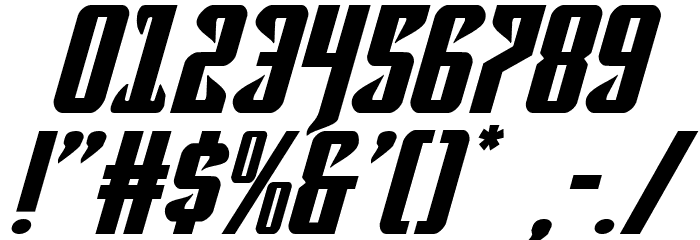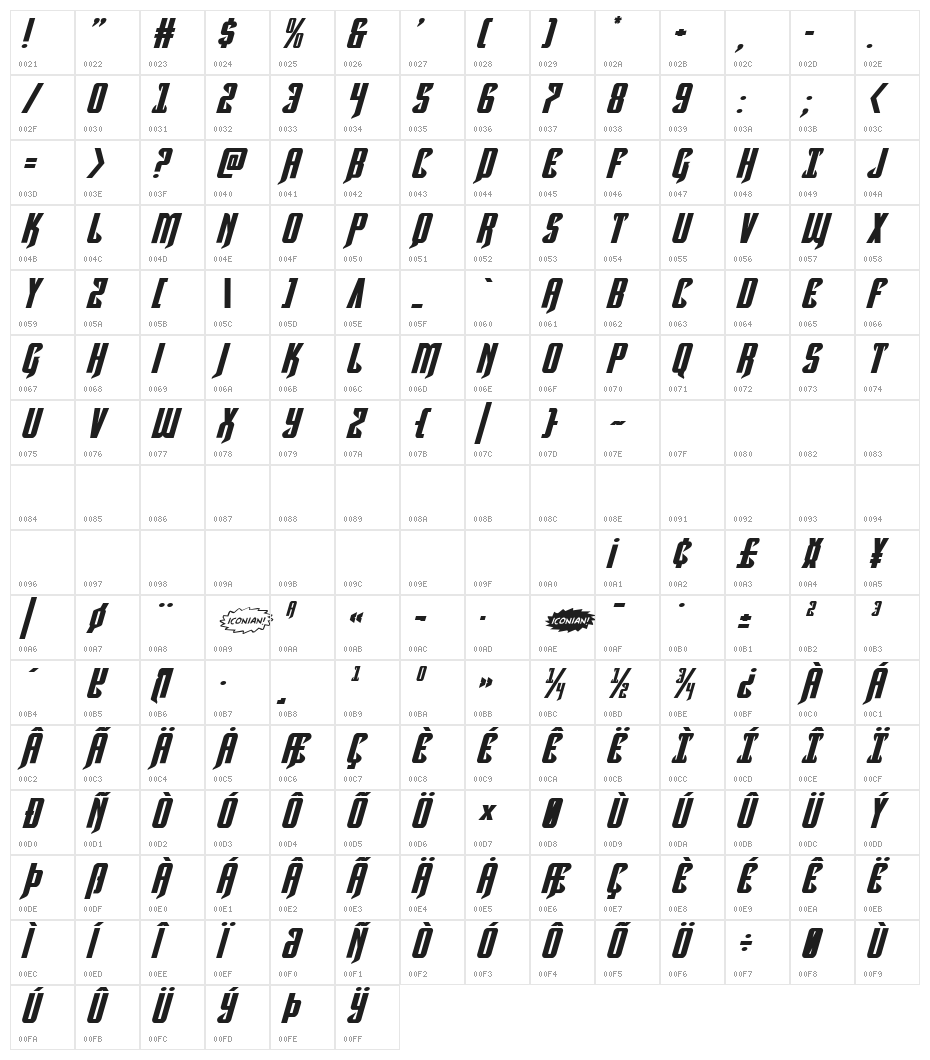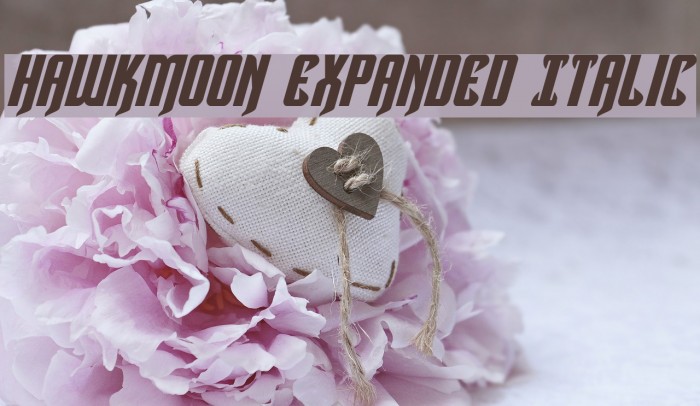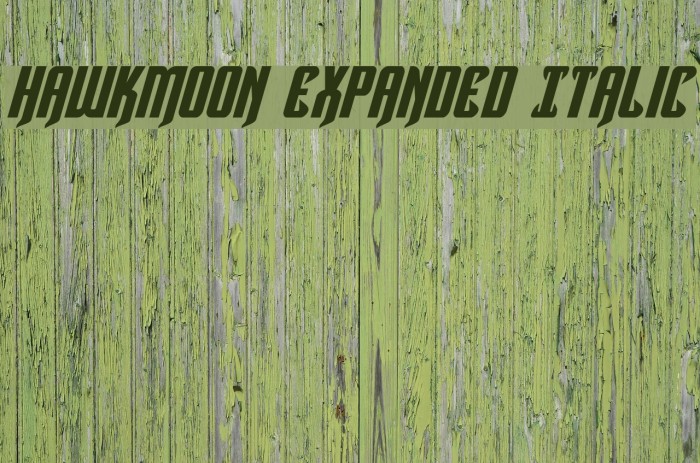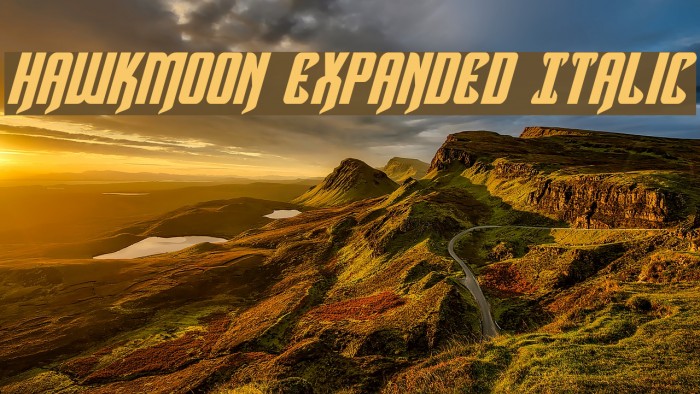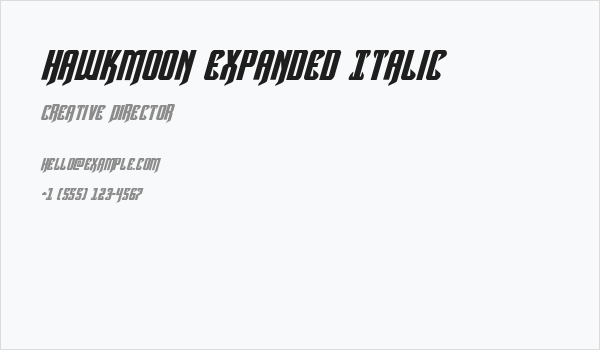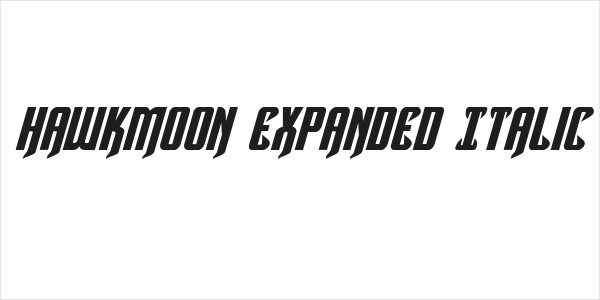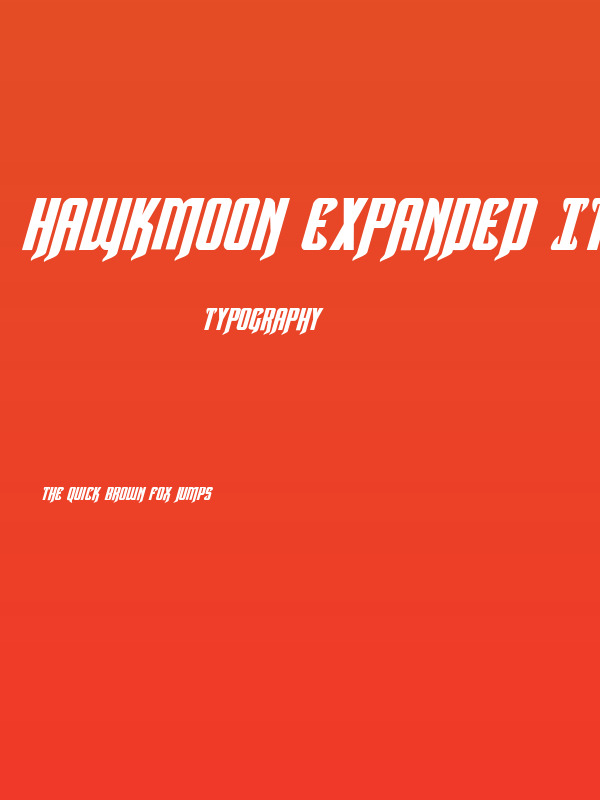
Hawkmoon Expanded Italic Font
Hawkmoon Expanded Italic Description
This font features a bold and dynamic style with an italic slant, giving it a sense of motion and energy. The characters are expanded, providing a wide stance that enhances readability while maintaining a strong visual impact. The strokes are thick and consistent, contributing to a high contrast between the characters and the background. The design is modern and sleek, with sharp angles and clean lines that create a futuristic and edgy appearance. This font is well-suited for projects that require a bold statement and a contemporary look.
| Proposed Projects | Ideal for use in branding, advertising, posters, and headlines where a strong and modern impact is desired. |